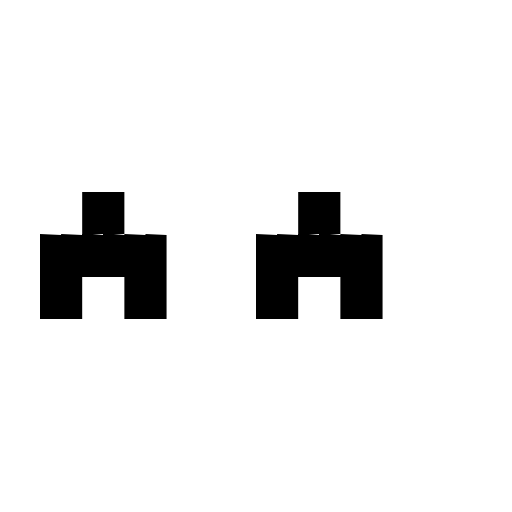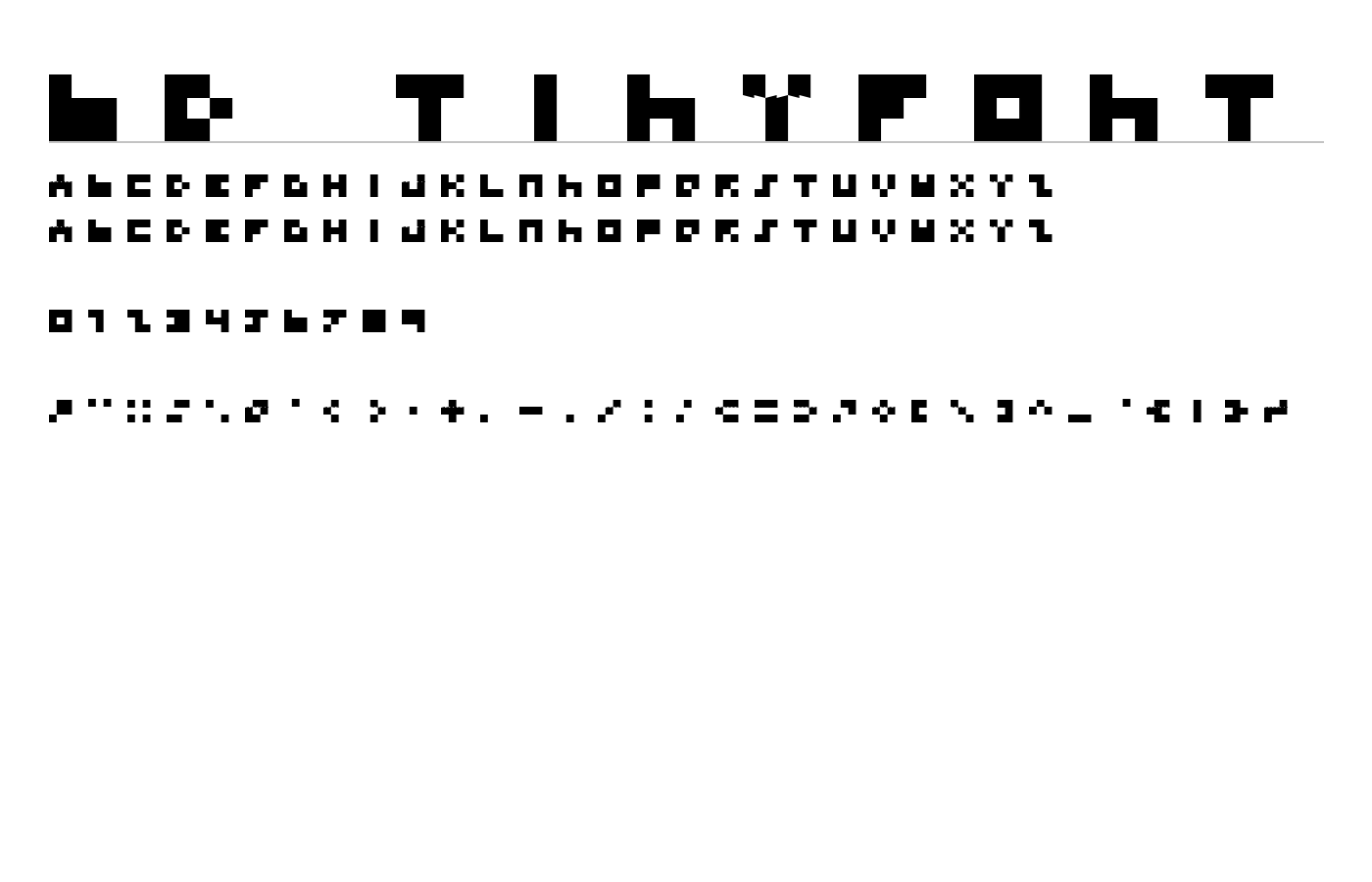
BD TINYFONT is a bold, pixel-style sans serif font with a condensed width and consistent stroke weight, giving it a strong, blocky appearance reminiscent of early digital or bitmapped text. Its high x-height and geometric shapes make it highly legible at small sizes, ideal for retro or tech-themed designs. This font works best in digital interfaces, video games, or branding that aims for a nostalgic, playful, and futuristic vibe.
BD TINYFONT
About BD TINYFONT